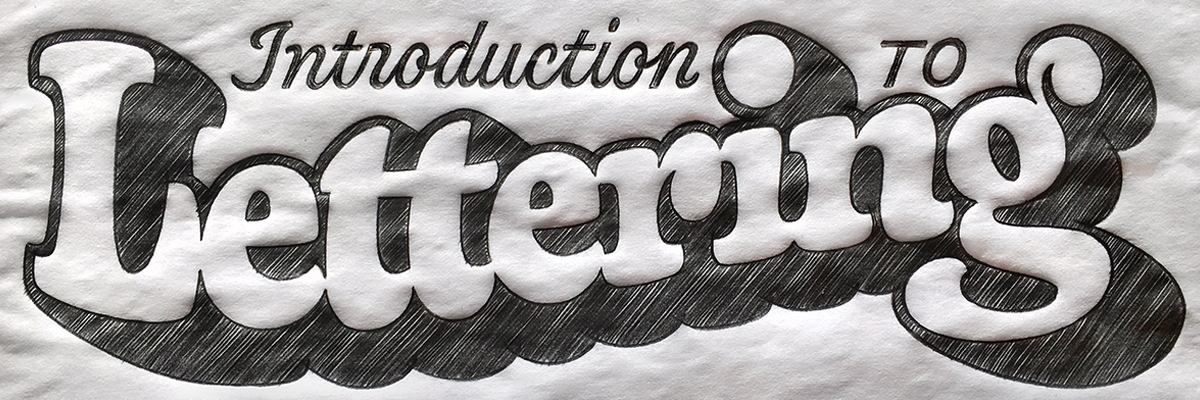
Lettering has become an increasingly marketable, if not essential, skill for artists working in design and advertising. The warmth and personality of hand-drawn letterforms can hardly be matched by off-the-shelf fonts. In this workshop, attendees will learn how to get the most out of lettering in a variety of applications.
Participants will begin by gaining a solid basis in the main principles that make for successful lettering. Referring to familiar typographic models and helpful specimens, students will then learn how to customize letterforms as they draw their own logos and wordmarks. Comprehensive slide presentations, informative sketching demonstrations, skill-building exercises, professional case studies, and valuable one-on-one critiques will provide further guidance as attendees acquire a practical foundation for implementing one-of-a-kind lettering in numerous design contexts.
Instruction will focus on developing fundamental hand skills, primarily by means of manual pencil-drawing techniques. Open to students of all skill levels.